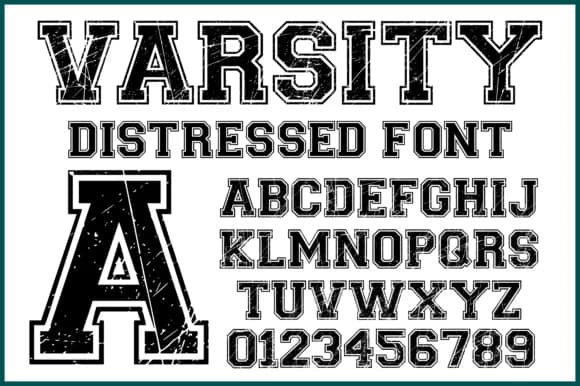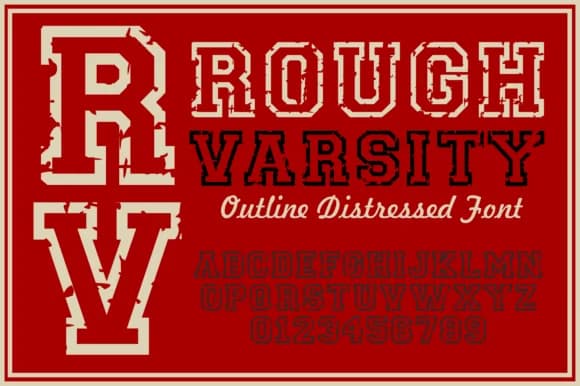
Team Worn by wtl.typography is a bold, distressed slab-serif that channels vintage athletic energy through its weathered texture and rugged character. The typeface works beautifully for varsity letter jacket designs, vintage sports event posters, team uniform embroidery, and retro brewery branding. Each character carries authentic wear marks that suggest decades of use, lending genuine nostalgia to designs without feeling forced or overly polished. The distressed details feel earned rather than artificial, which is what makes the typeface stand out when you need visual weight and credibility.
This font performs equally well for athletic event signage, motorcycle club graphics, skateboard deck artwork, and vintage-inspired apparel prints. The rough edges work in both large display applications and smaller detail work. Available in OTF, SVG, PNG, and EPS formats, Team Worn adapts to whatever your workflow demands. You can cut designs for apparel, render files on screen, work directly in design software, or send to vinyl cutting and embroidery systems. The multiple file types give you the flexibility your project needs. If you're building anything that needs grit, history, and presence, Team Worn delivers that feeling across every application. Get it from Creative Fabrica and add some weathered authenticity to your next project.
- Sturdy, Confident, Varsity Font
Team Worn Font is a slab serif font that shines as a display or heading face. Pair it with a clean sans-serif or serif font for body text β the contrast creates a clear hierarchy while the two styles stay balanced and easy to read.